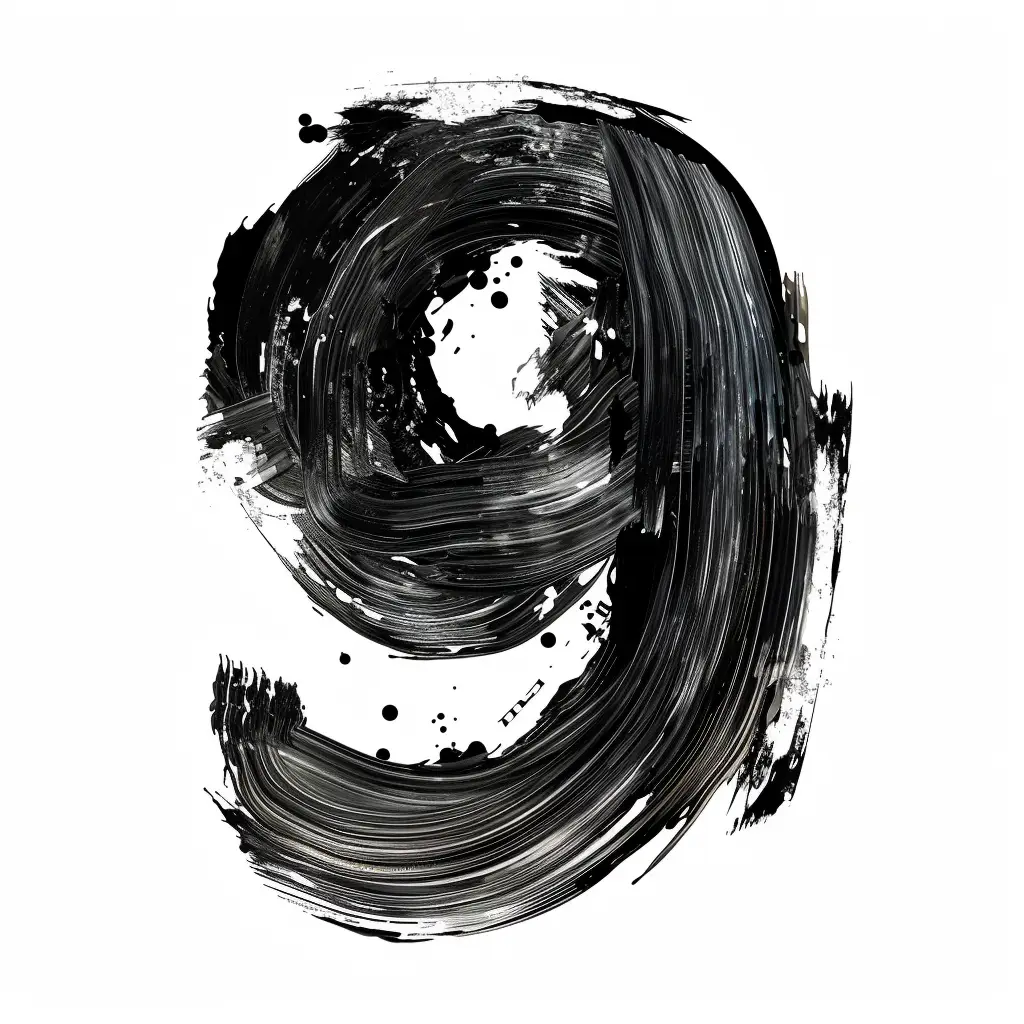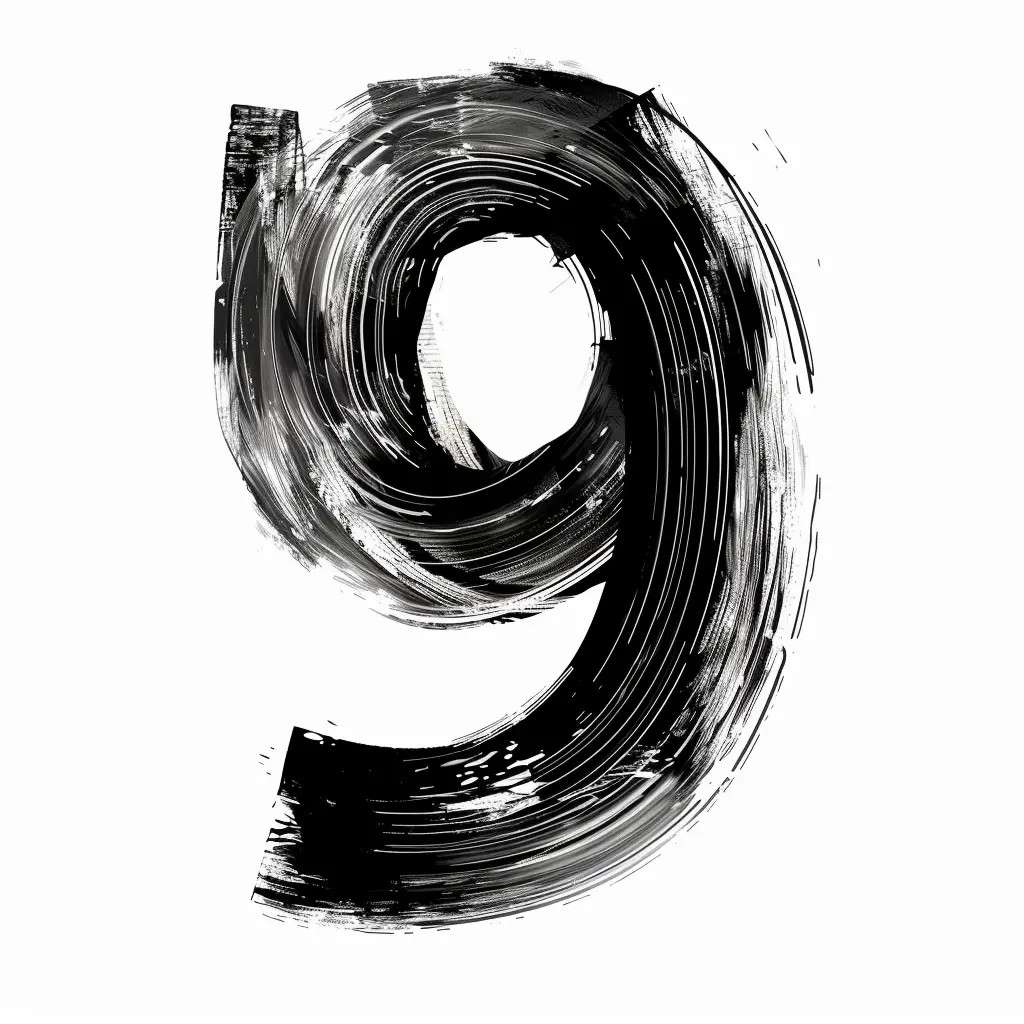
The image features a stylized, hand-drawn letter "O" rendered in bold black brushstrokes against a plain white background. The design has a rough, textured appearance with uneven, expressive lines and varying shades of black, creating a dynamic, artistic effect. The circular shape is defined by thick, overlapping strokes that give it a painterly, abstract quality.